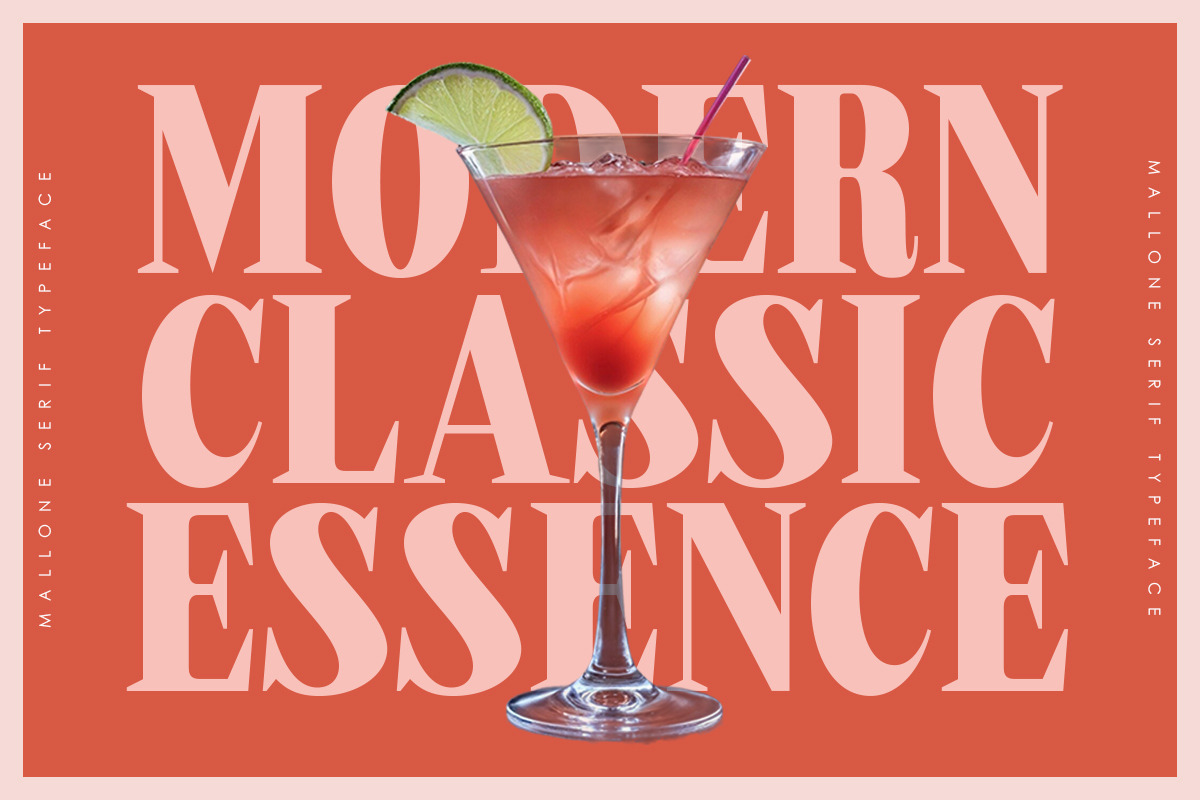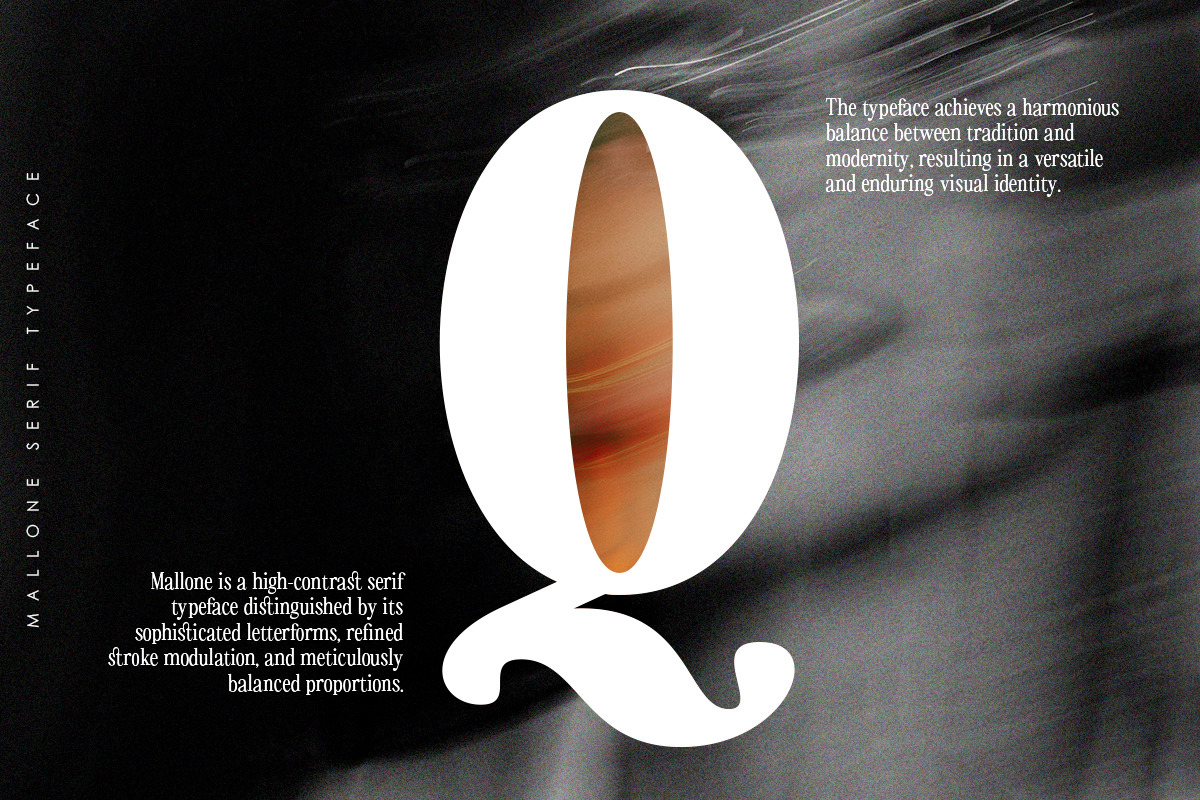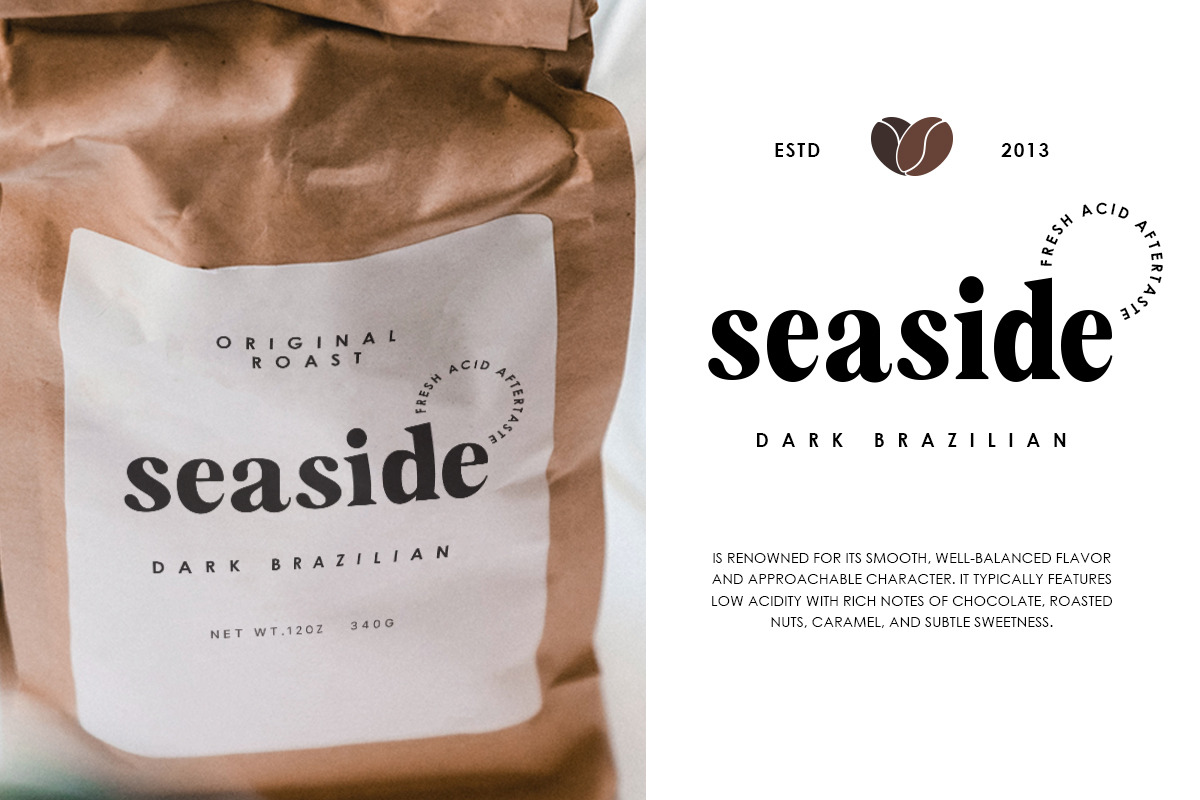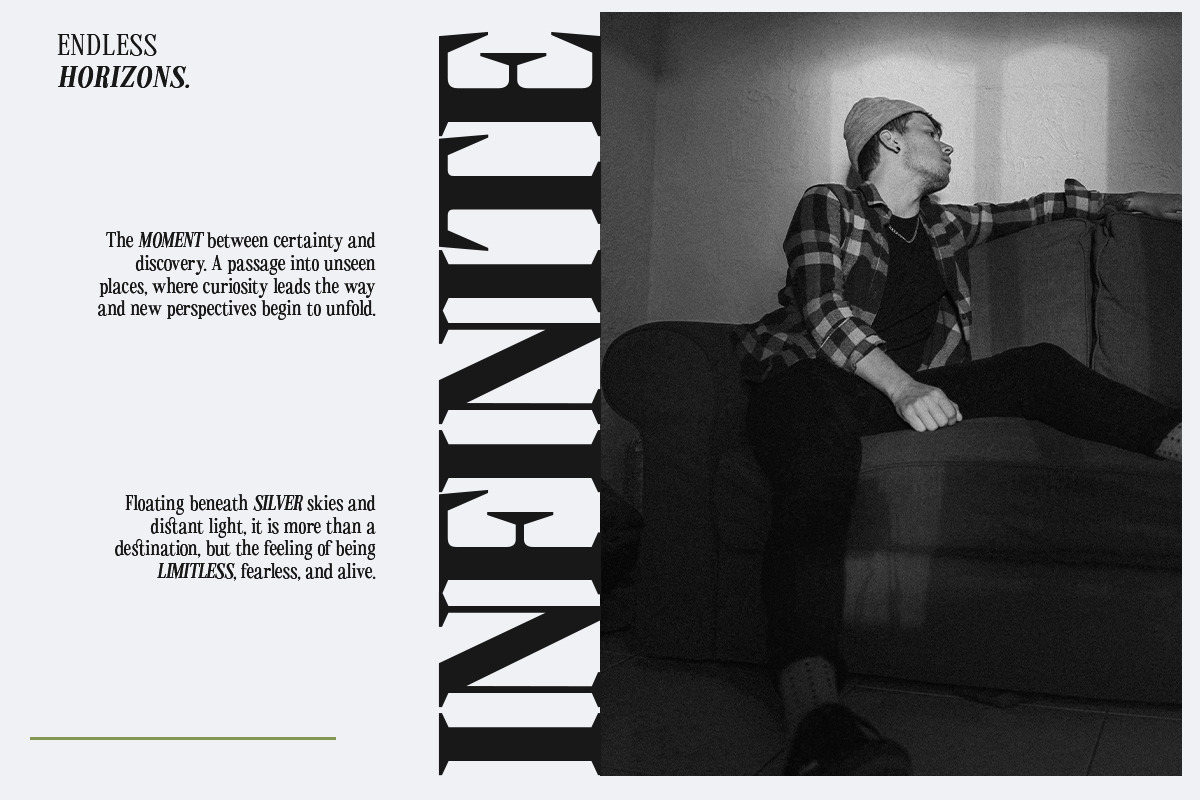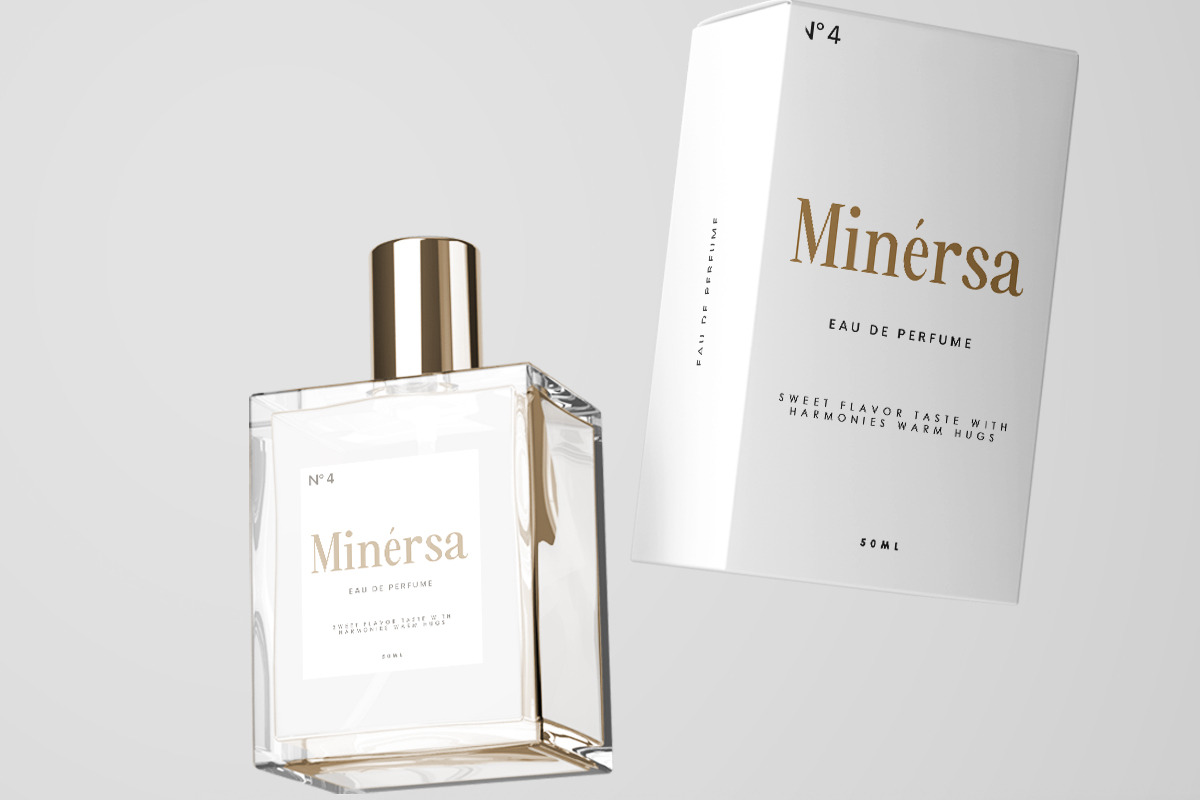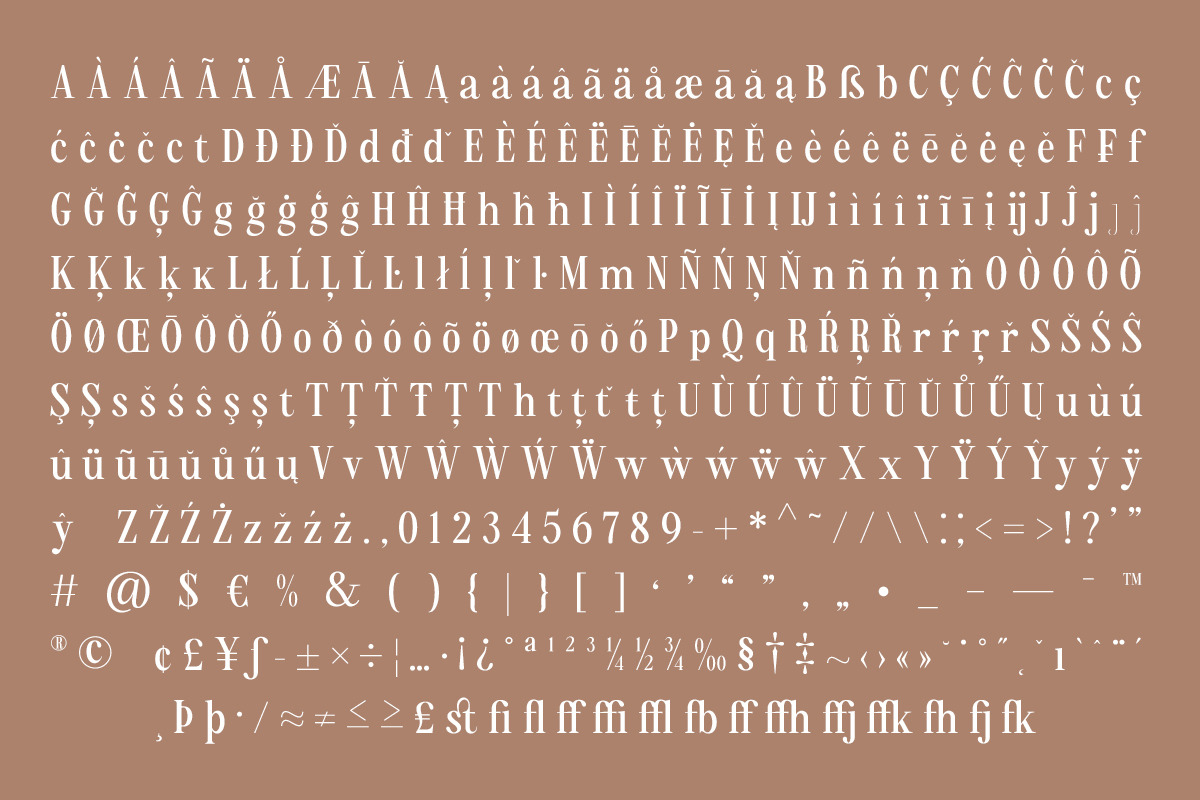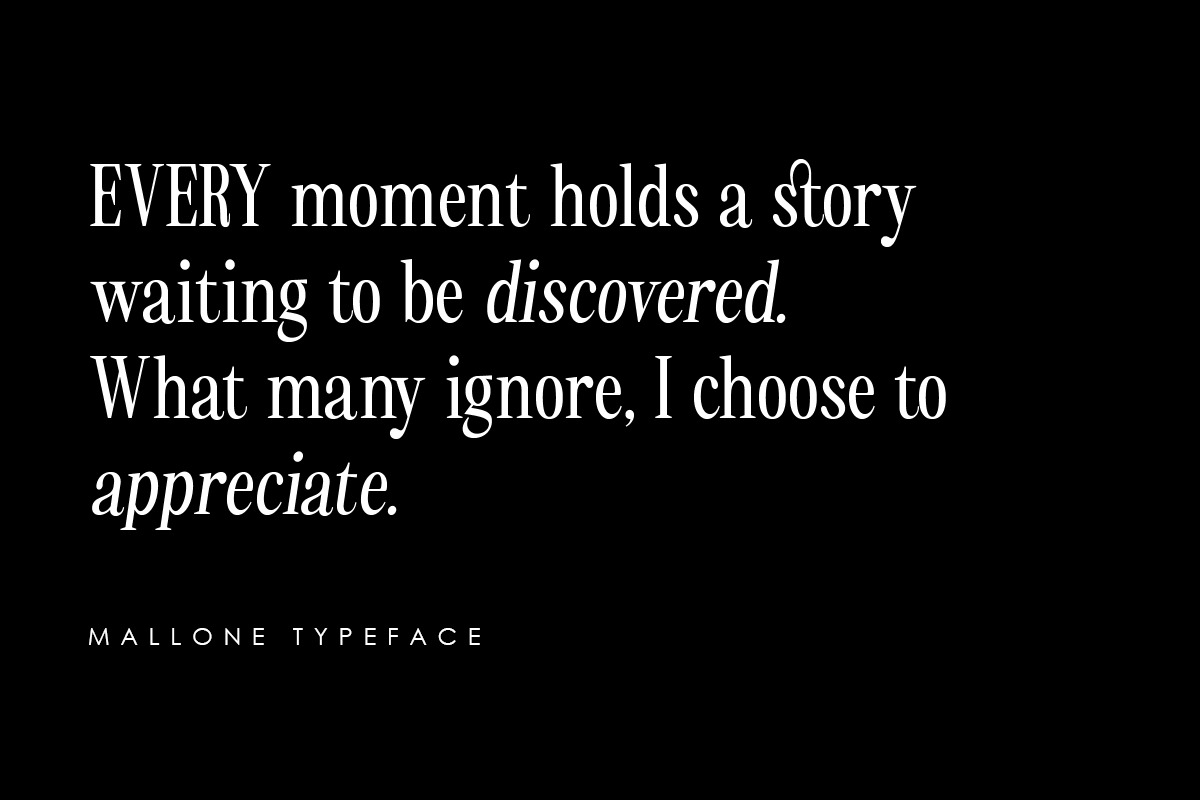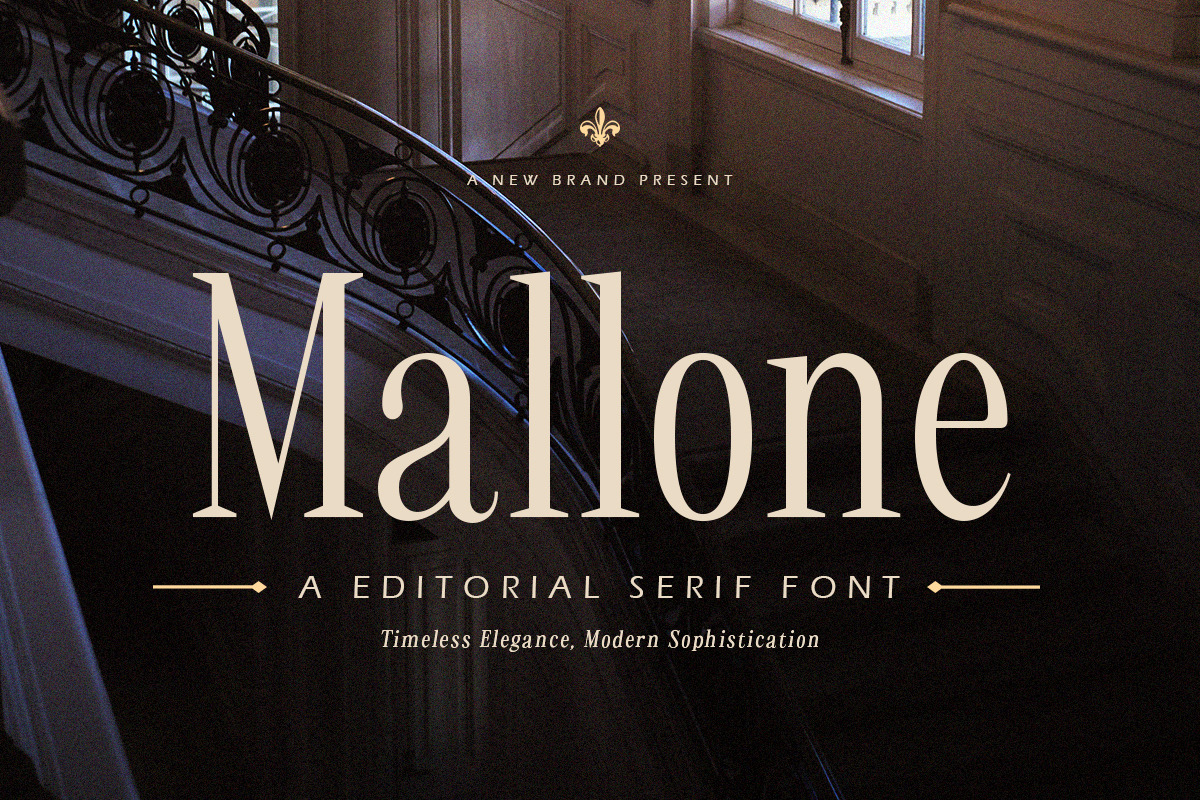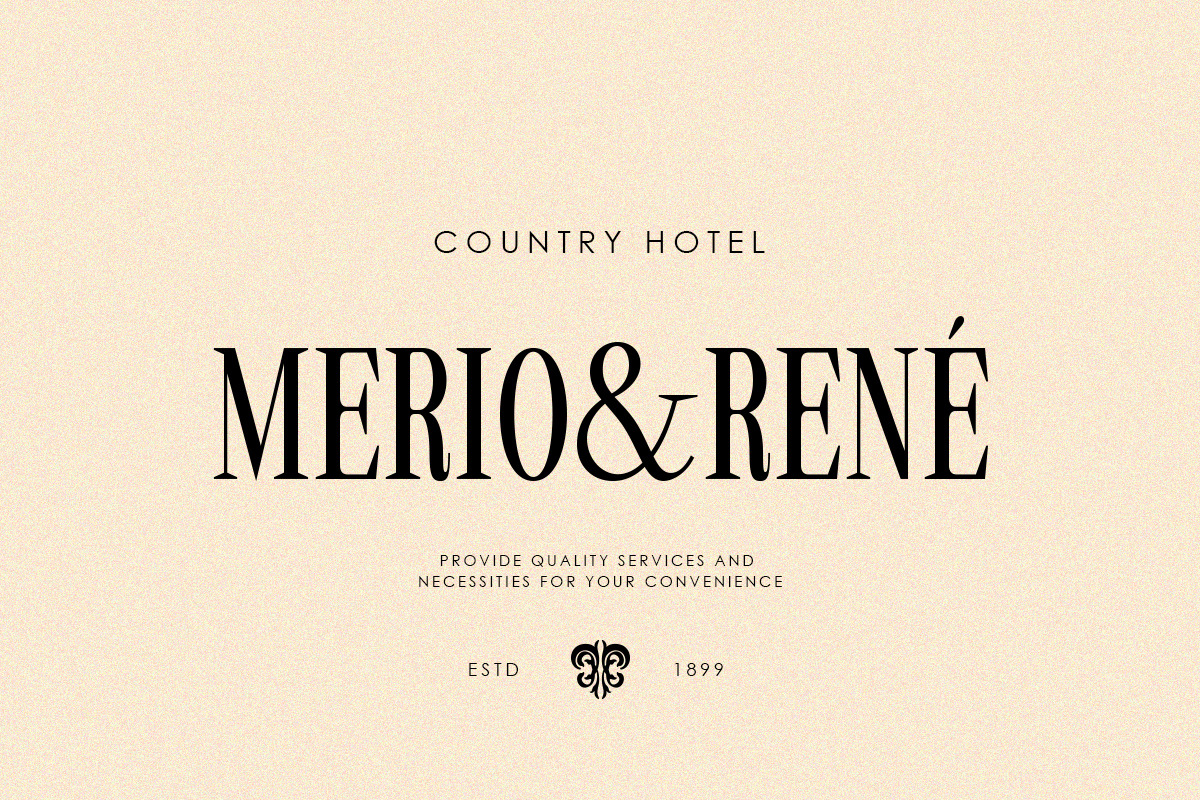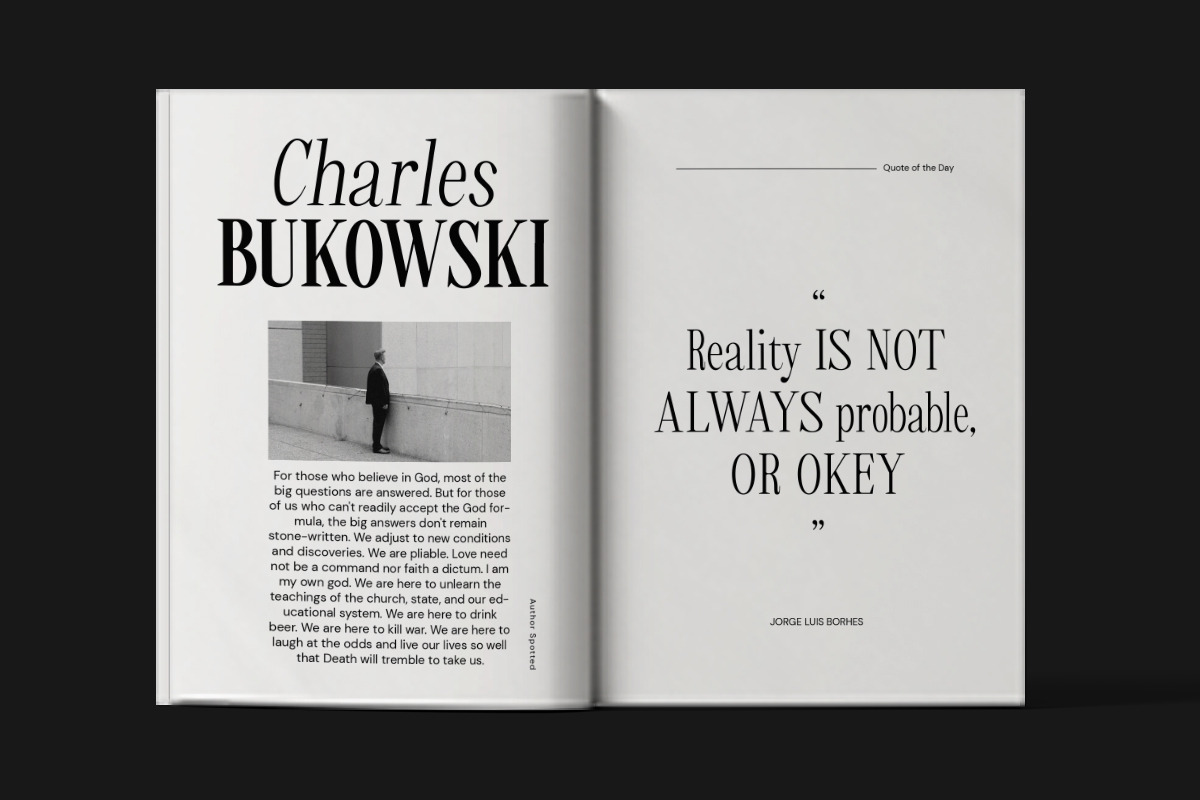
Mallone | 12 Fonts
Mallone is a refined editorial serif typeface that embodies timeless elegance and contemporary sophistication. Designed with a harmonious balance of high-contrast strokes, graceful curves, and meticulously crafted proportions, it delivers a luxurious visual presence ideal for premium branding, fashion editorials, luxury packaging, magazines, invitations, and high-end marketing materials.
Its distinctive character emerges from the combination of slender stems, elegant terminals, and subtle classical influences, creating a typeface that feels both authoritative and fashionable. The carefully balanced letterforms offer exceptional readability while maintaining a strong editorial personality, making Mallone suitable for both striking headlines and sophisticated display applications.